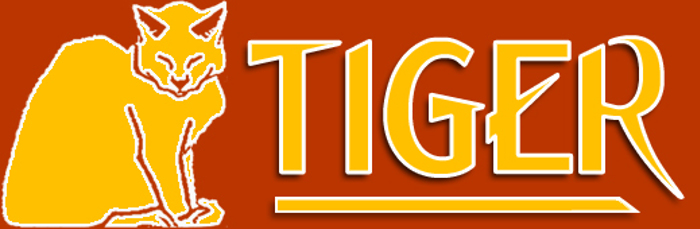
Ming Font
A contemporary sans serif with the futuristic Art Deco feel of mid 20th century science fiction, particularly the early Flash Gordon serials. Saturday matinées at the Gaumont cinema in Allerton, Liverpool.